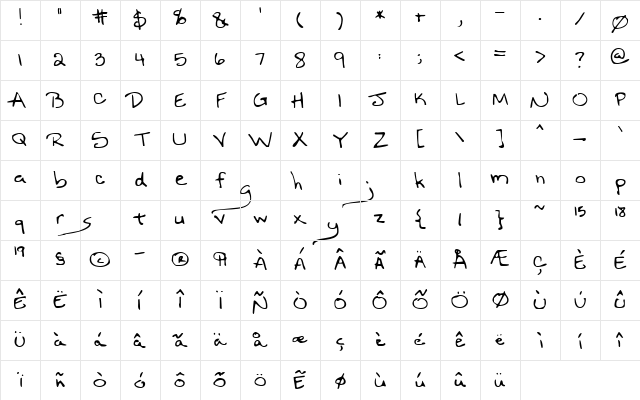
Nineteen Regular
Design Context for Nineteen
Nineteen is a composed and adaptable typeface that performs quietly and consistently across a wide range of design contexts.
Pro Tip: Use Nineteen in both headline and body roles to test its range before committing to a single application.